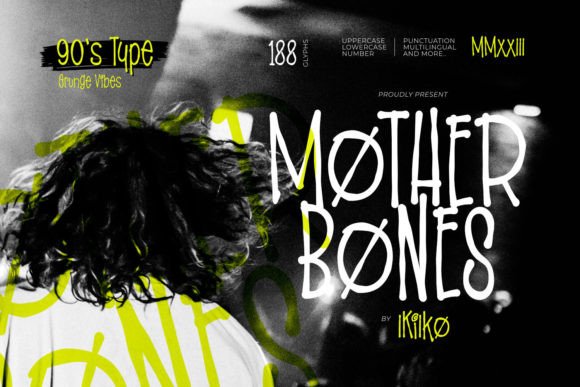
Journey back to the 90s with Mother Bones, a captivating display font family that emanates the raw, wild, and freestyle energy of the grunge era. Inspired by the handwritten style that defined that iconic decade, Mother Bones features spontaneous strokes and unique lines that burst with character. This font isn't just a collection of letters; it's a portal to a time when music, fashion, and art collided in a vibrant explosion of creativity.
With Mother Bones, you can pay homage to the 90s or add a touch of nostalgic charm to your modern designs. Its versatility shines in creating posters, magazine layouts, brand logos, sleeve covers, party flyers, and quotes. You can also use it as a stylish text overlay to transform any background image into a captivating visual masterpiece.
Mother Bones is more than just a font; it's an experience that transports you back to a time of unbridled self-expression and boundless creativity. Whether you're a seasoned designer or just starting, Mother Bones is the perfect choice to add a touch of 90s flair to your projects. Embrace the wild, let your imagination run free, and create designs that resonate with the energy of a bygone era.